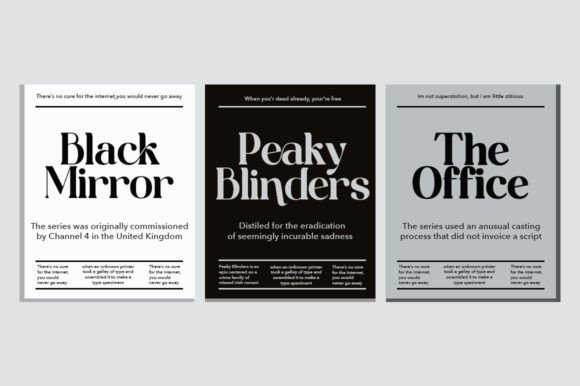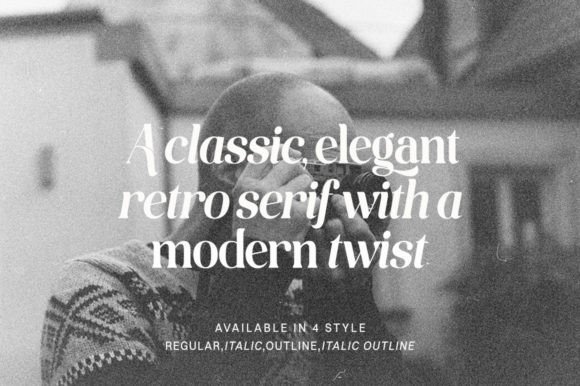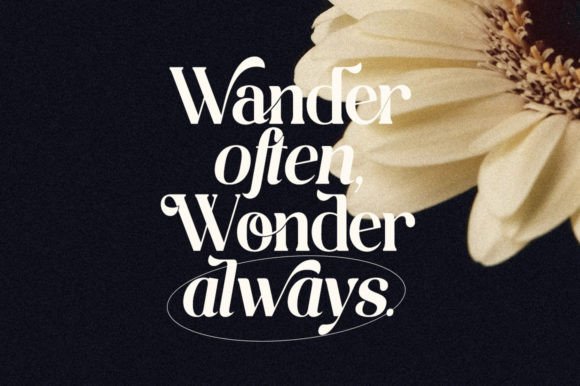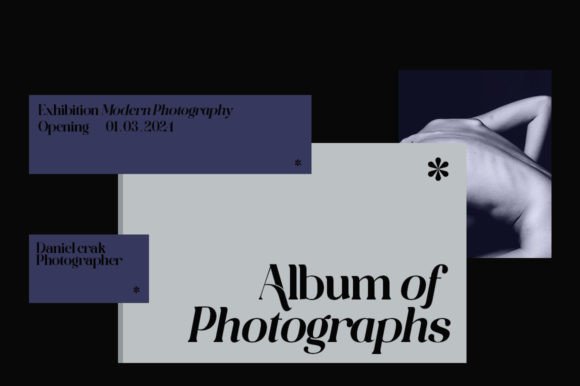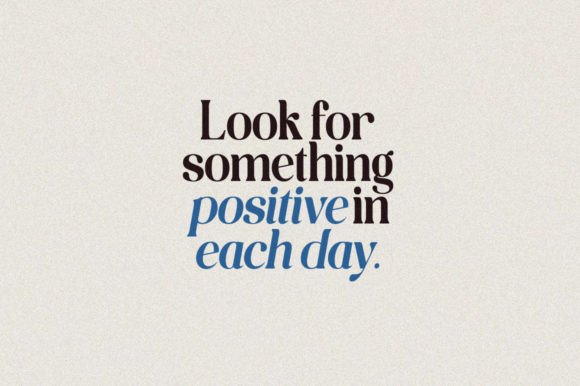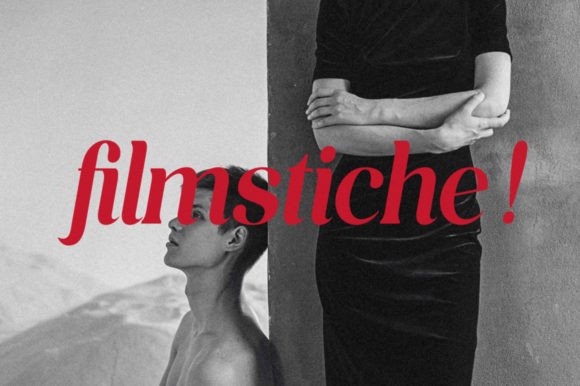
Hella Instegra Font: Elevate Your Designs with Elegance and Style
In the world of typography, fonts play a crucial role in bringing designs to life. For designers and crafters looking to add a touch of sophistication and uniqueness to their projects, the Hella Instegra font is an excellent choice. This stylish and elegant display font seamlessly blends modern and retro elements, making it versatile for a wide range of chic design ideas.
The Unique Charm of Hella Instegra
Hella Instegra stands out with its distinctive mix of modern and retro vibes. This fusion gives the font a timeless quality, allowing it to be used in various design contexts, from contemporary branding to vintage-inspired crafts. The font’s elegant lines and stylish curves make it perfect for creating eye-catching headlines, titles, and slogans that demand attention.
Key Features of Hella Instegra Font
- Stylish and Elegant: Hella Instegra boasts a sophisticated look that can elevate any design project.
- Modern and Retro Mix: The font combines the best of both worlds, offering a unique aesthetic that appeals to a broad audience.
- Versatile: Suitable for a wide range of design ideas, including branding, packaging, posters, and more.
- Display Font: Ideal for headlines, titles, and short texts where visual impact is crucial.
Applications of Hella Instegra
The versatility of Hella Instegra makes it an excellent choice for various design projects. Here are some of the areas where this font truly shines:
- Branding and Logos: Use Hella Instegra to create memorable and stylish logos that set your brand apart.
- Advertising and Marketing: The font’s elegant and modern look makes it perfect for ad campaigns and promotional materials.
- Graphic Design: Enhance your posters, flyers, and brochures with the sophisticated touch of Hella Instegra.
- Crafting and DIY Projects: Whether you’re creating custom invitations, cards, or decorations, this font adds a touch of elegance.
Why Choose Hella Instegra?
With so many fonts available, why should Hella Instegra be your go-to choice? Here are a few compelling reasons:
- Unique Aesthetic: The blend of modern and retro styles ensures your designs stand out.
- Ease of Use: Hella Instegra is designed to be user-friendly, making it easy to incorporate into your projects.
- High Versatility: From digital designs to print materials, this font adapts seamlessly across different mediums.
Tips for Using Hella Instegra Effectively
To get the most out of Hella Instegra, consider the following tips:
- Pair with Complementary Fonts: Combine Hella Instegra with simpler fonts for body text to create visual contrast.
- Experiment with Colors: While the font itself is stylish, experimenting with different colors can further enhance its impact.
- Play with Sizes: Use varying sizes to create a hierarchy of information, making your designs more readable and engaging.
Hella Instegra is more than just a font; it’s a design statement. Its elegant and stylish appearance, combined with its versatility, makes it an invaluable tool for designers and crafters. Whether you’re looking to create something modern, retro, or a mix of both, Hella Instegra is up to the task. Elevate your designs with the sophistication and charm that only Hella Instegra can provide.
Discover the creative possibilities with Hella Instegra and bring your design ideas to life in style!